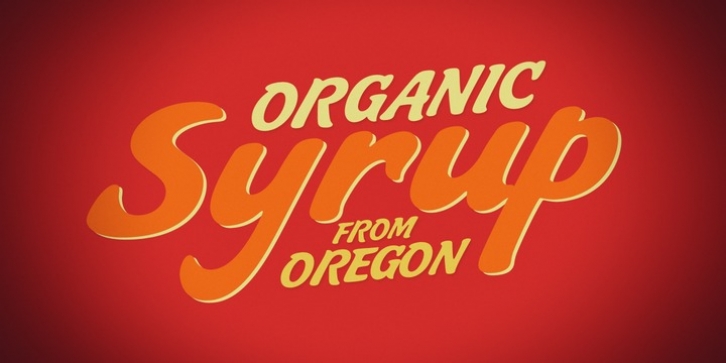
Jugo Script is a Koziupa/Paul near-parody of the soft and speedy late-1980s, early-1990s display scripts. Though it essentially is one of the usual exhibits of Koziupa’s calligraphic skill, its individual shapes and overall construct show a mischievous wink at Oz Cooper and the hundreds of lens-blurred film types he inspired in the 1970s and 80s.
Koziupa’s unique sense of letterform and proportion is on full display in the uppercase and the figures, while the lowercase is an eccentric exercise in single stroke lettering, complete with quick and subtle wrist bends, minimal pausing, and hurried exits.
Jugo Script’s softness and internal call-and-answer structure make it a natural for comfort food packaging, especially the sweet stuff.